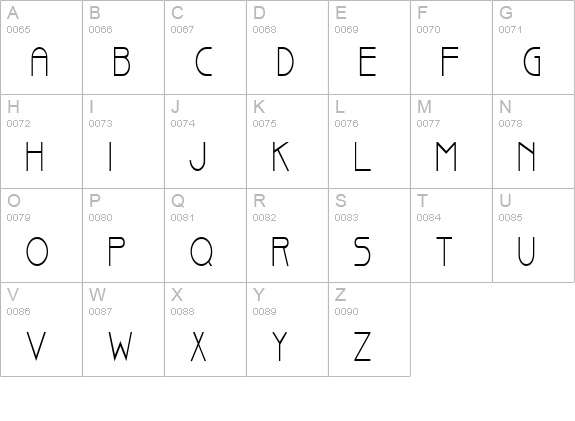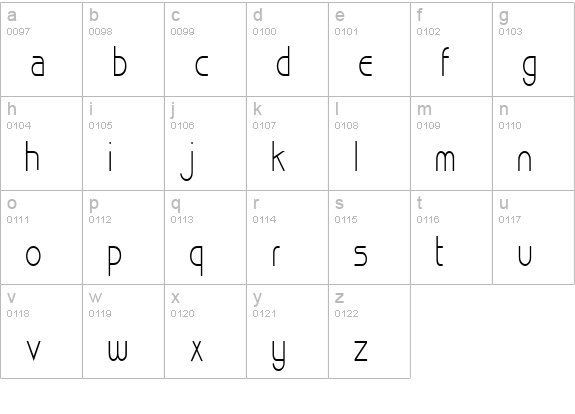
Basque Thin Normal is a delicate, low-contrast variant in the Basque typeface family \xE2\x80\x94 well suited to fashion editorial, minimal branding, and high-contrast display.
Basque Thin Normal font is a sleek and elegant typeface that exudes sophistication and modernity. With its clean lines and balanced proportions, this font is perfect for adding a touch of refinement to any design project. The thin weight of the font gives it a delicate and airy appearance, making it ideal for use in both headings and body text. One of the best things about Basque Thin Normal font is that it is available for free. You can easily download this beautiful font at FontsMarket.com and start using it in your projects right away. Whether you're designing a website, creating marketing materials, or working on a personal project, Basque Thin Normal font is sure to elevate your work with its timeless appeal and versatility.